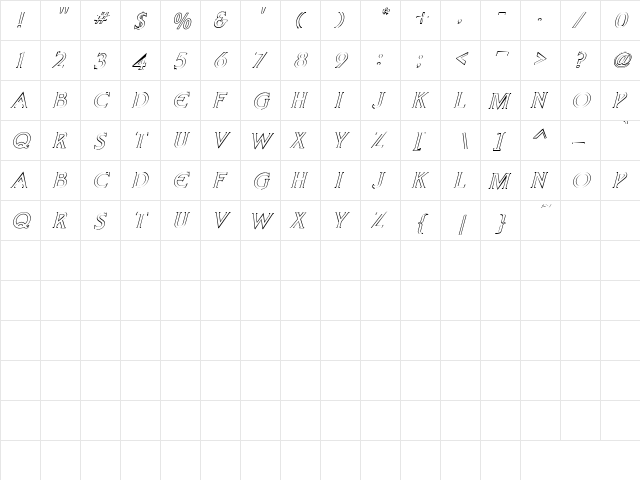
Patty 3 Italic
Design Context for Patty 3 Typeface
Patty 3 takes a measured approach to typography — its balanced proportions and neutral character make it a reliable workhorse for both digital and print work. The slanted form adds forward momentum and visual energy.
Pro Tip: Try Patty 3 for annotation and caption copy alongside an upright companion — the contrast in angle creates a dynamic but ordered typographic system.